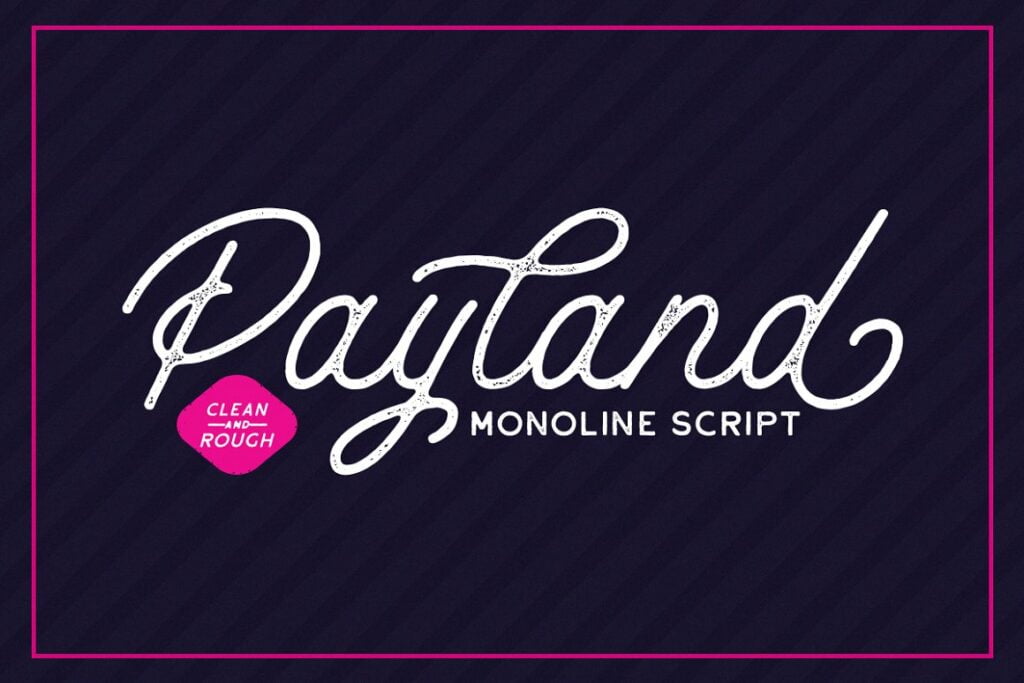
Payland Font
Introducing the Payland monoline script Font. This font is perfect for you who want to make logotype or quotes using monoline style font. Payland contains 2 fonts style, regular one if you’re big fan of simplicity and clean design, and rough one for you who want a little bit of vintage touch on your design, on top op that, this font have up to 11 stylistic alternate! So, what are you waiting for? grab this font and use it for your next project right away.
Payland Monoline Script Font